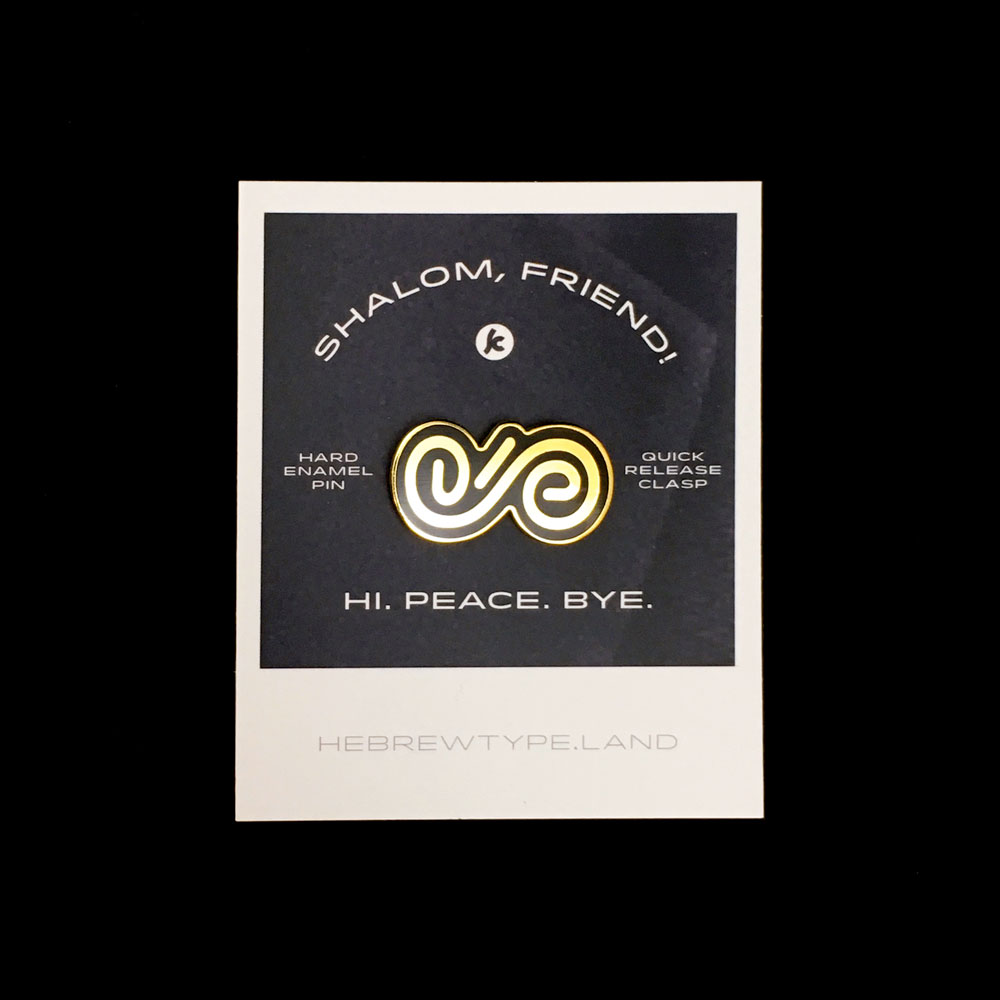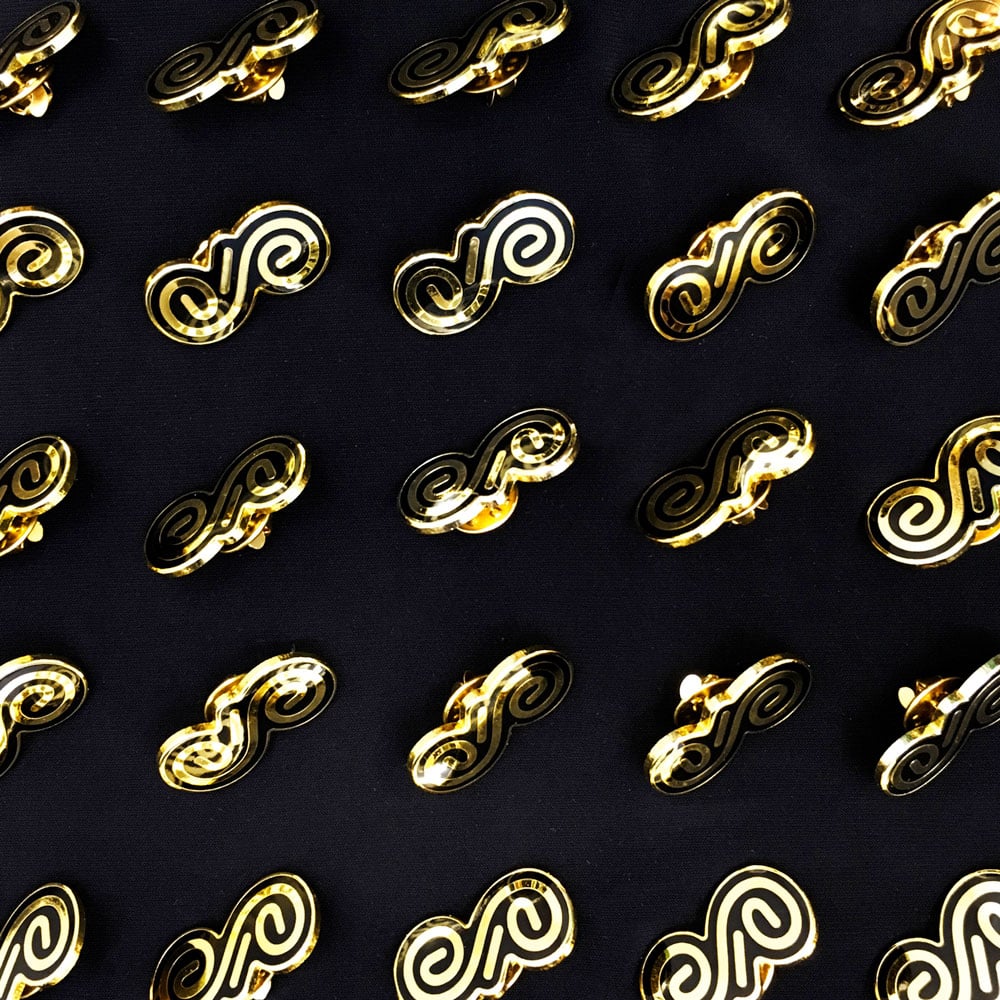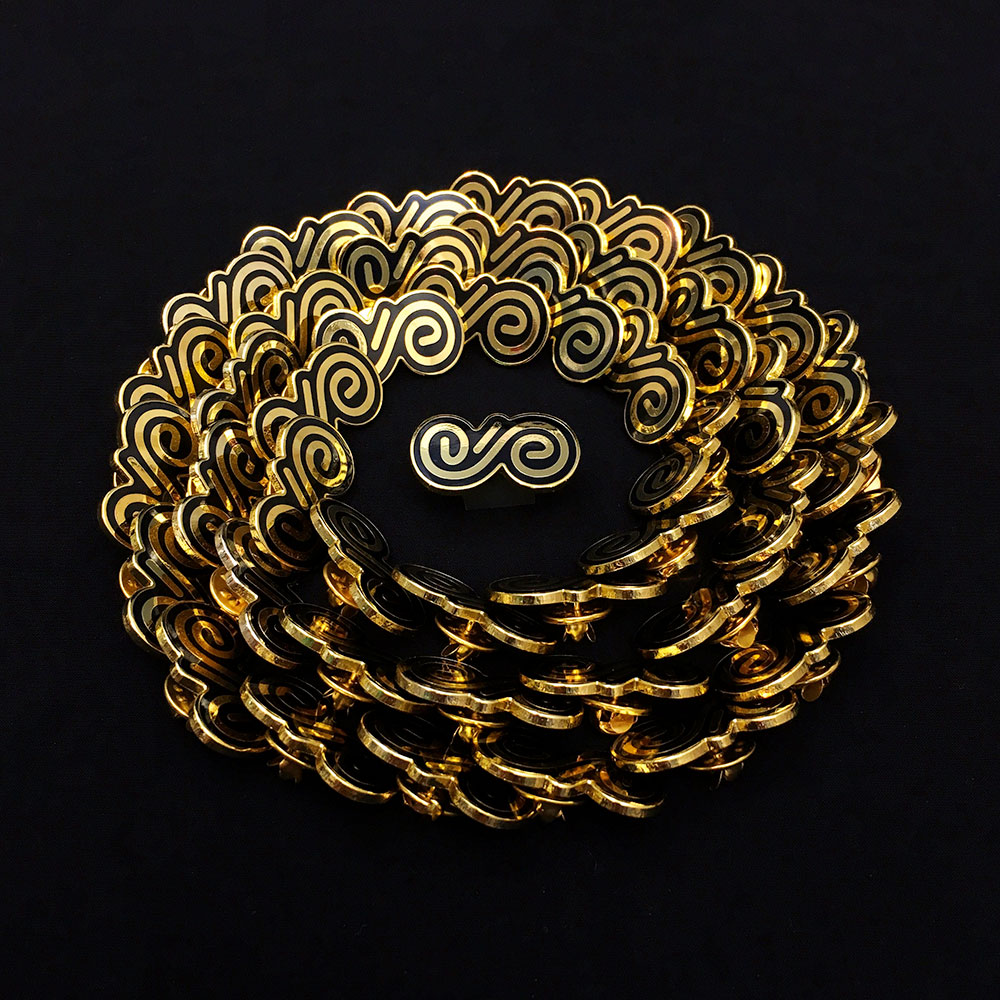
Shalom Enamel Pin
שלום shalom, meaning “hi," “bye," and "peace.”
I am extremely proud of this design because the letters are not only read the standard right-to-left, but when the pin is rotated, the word shalom is read in an entirely new way from top-to-bottom. It’s my little reminder to strive for peace, no matter what direction your views lay.